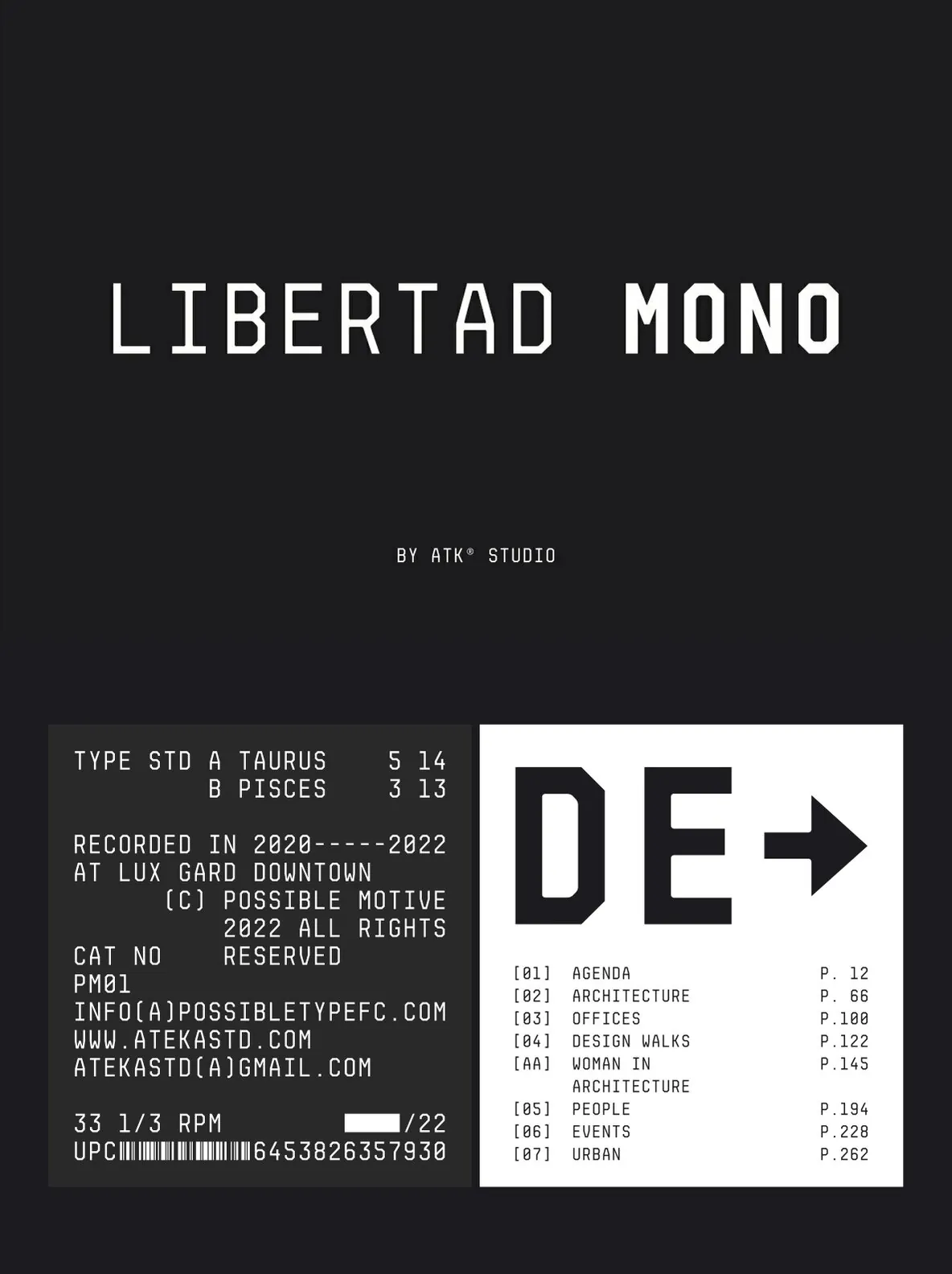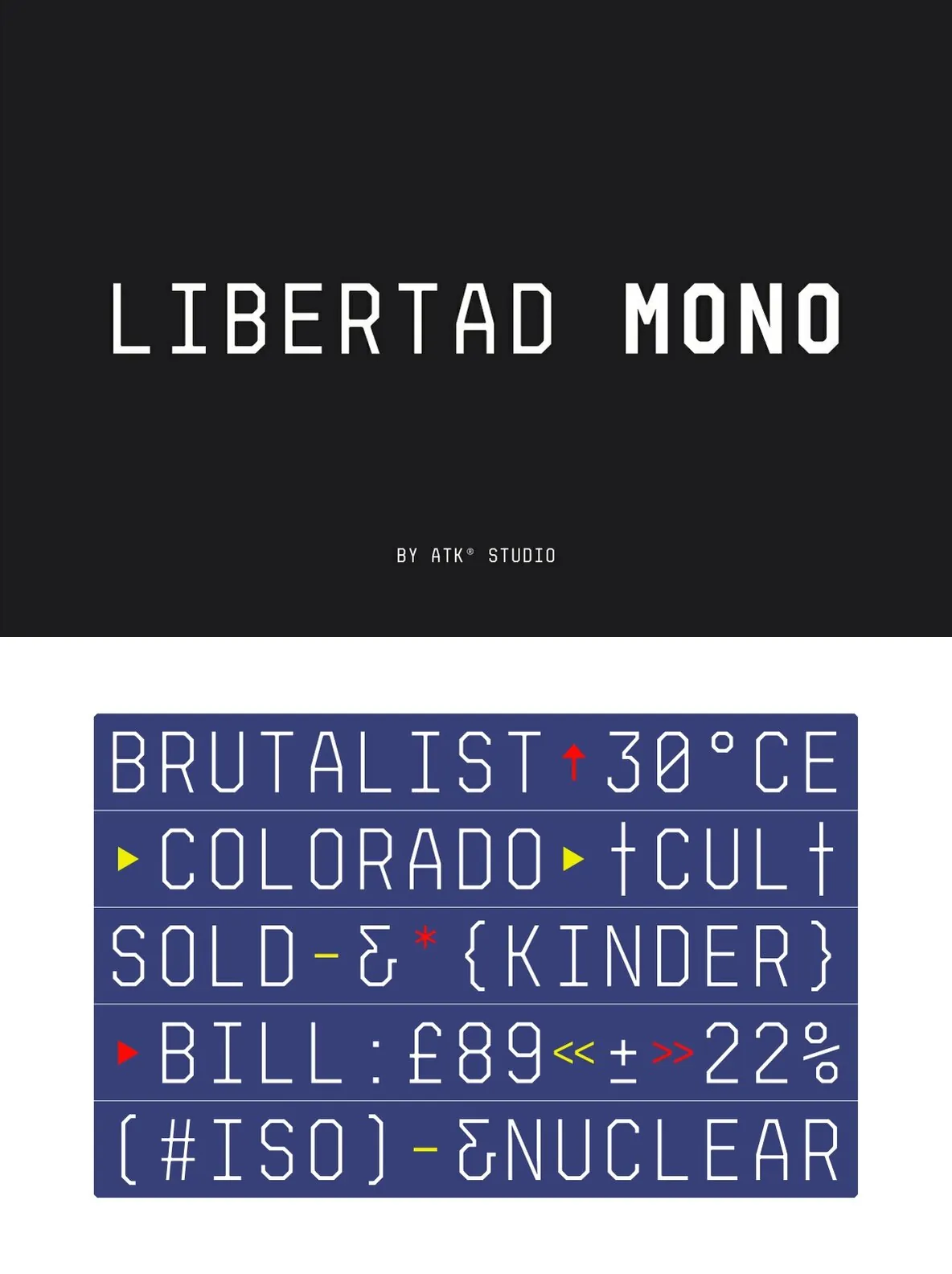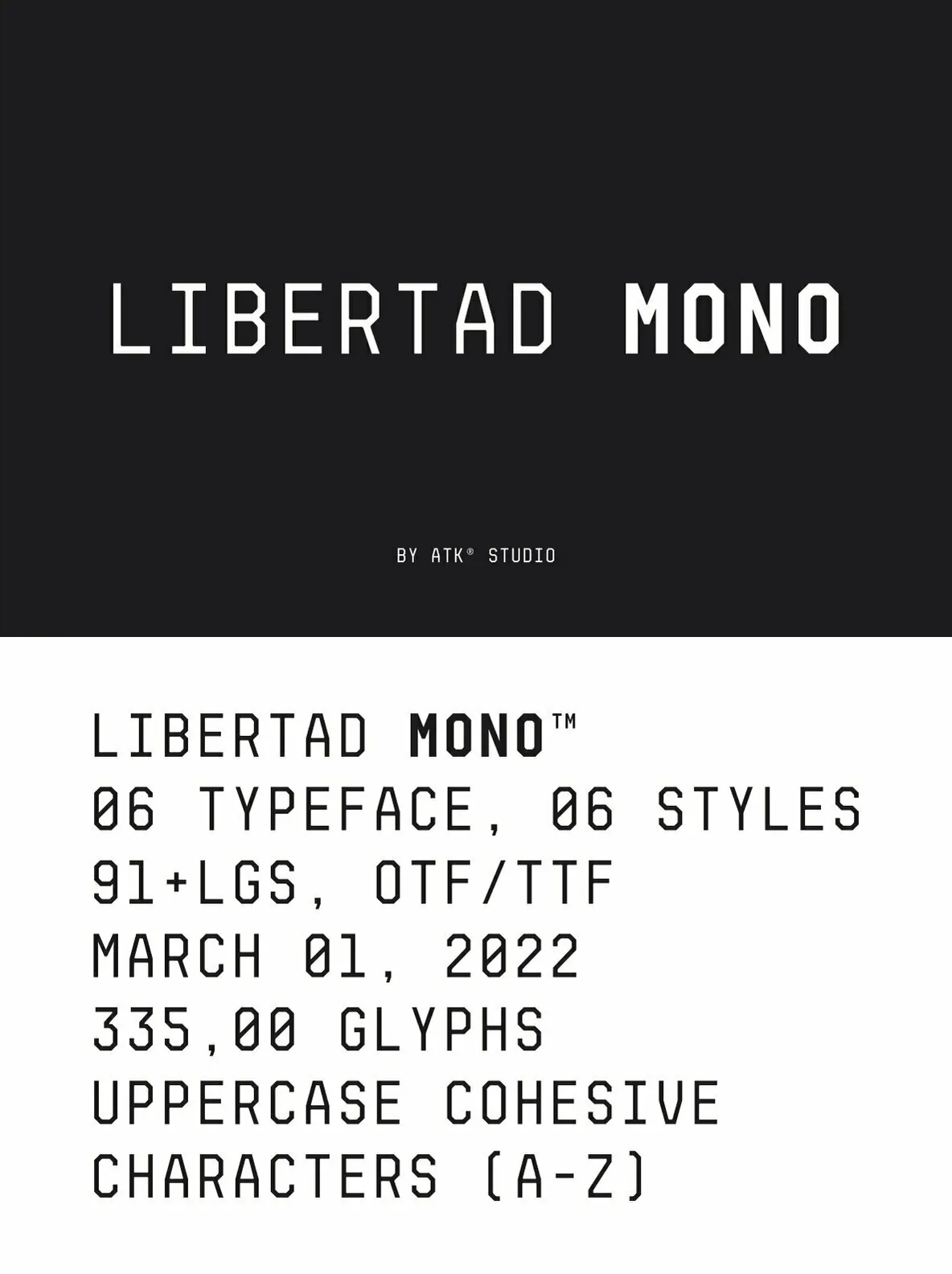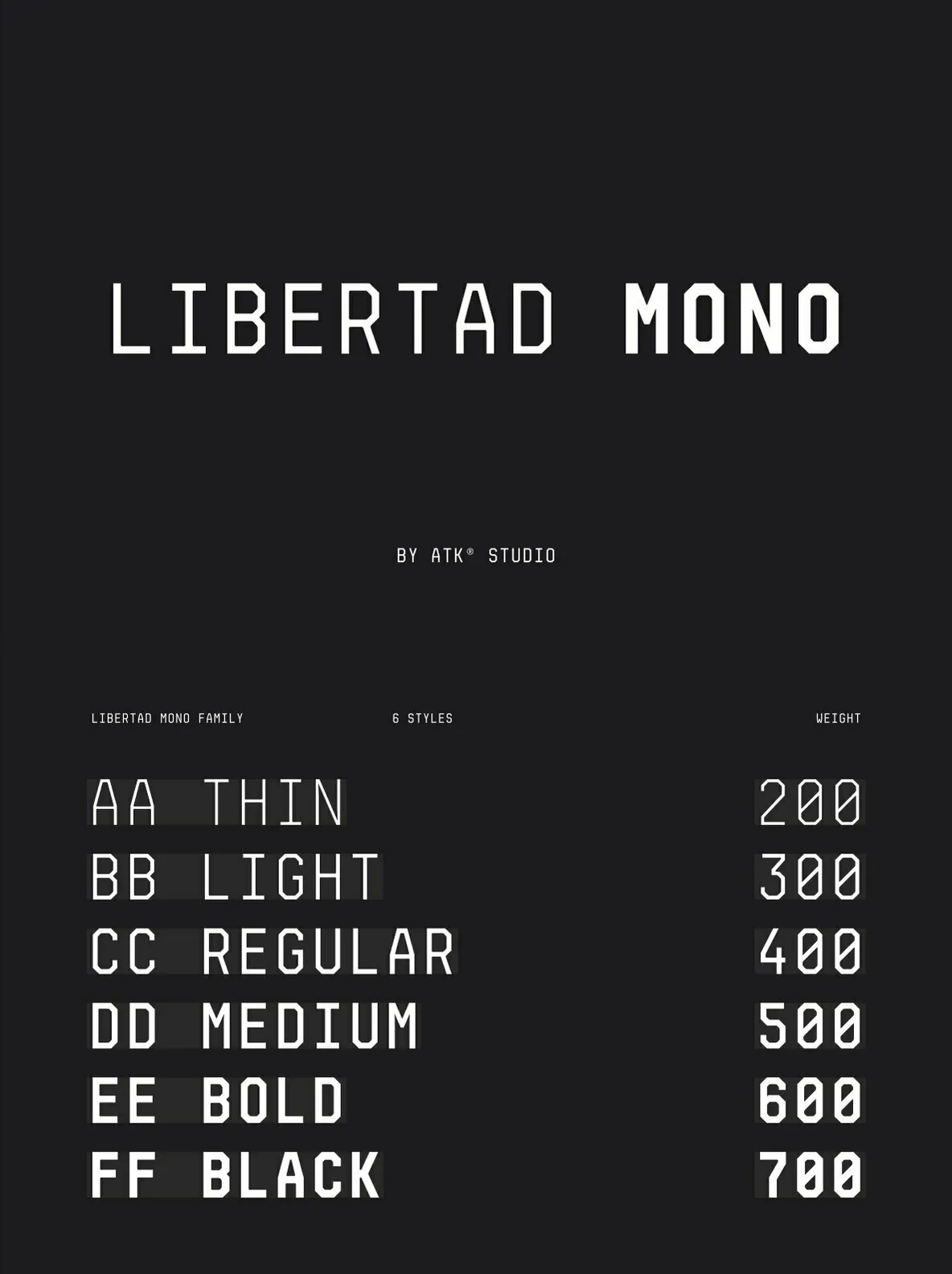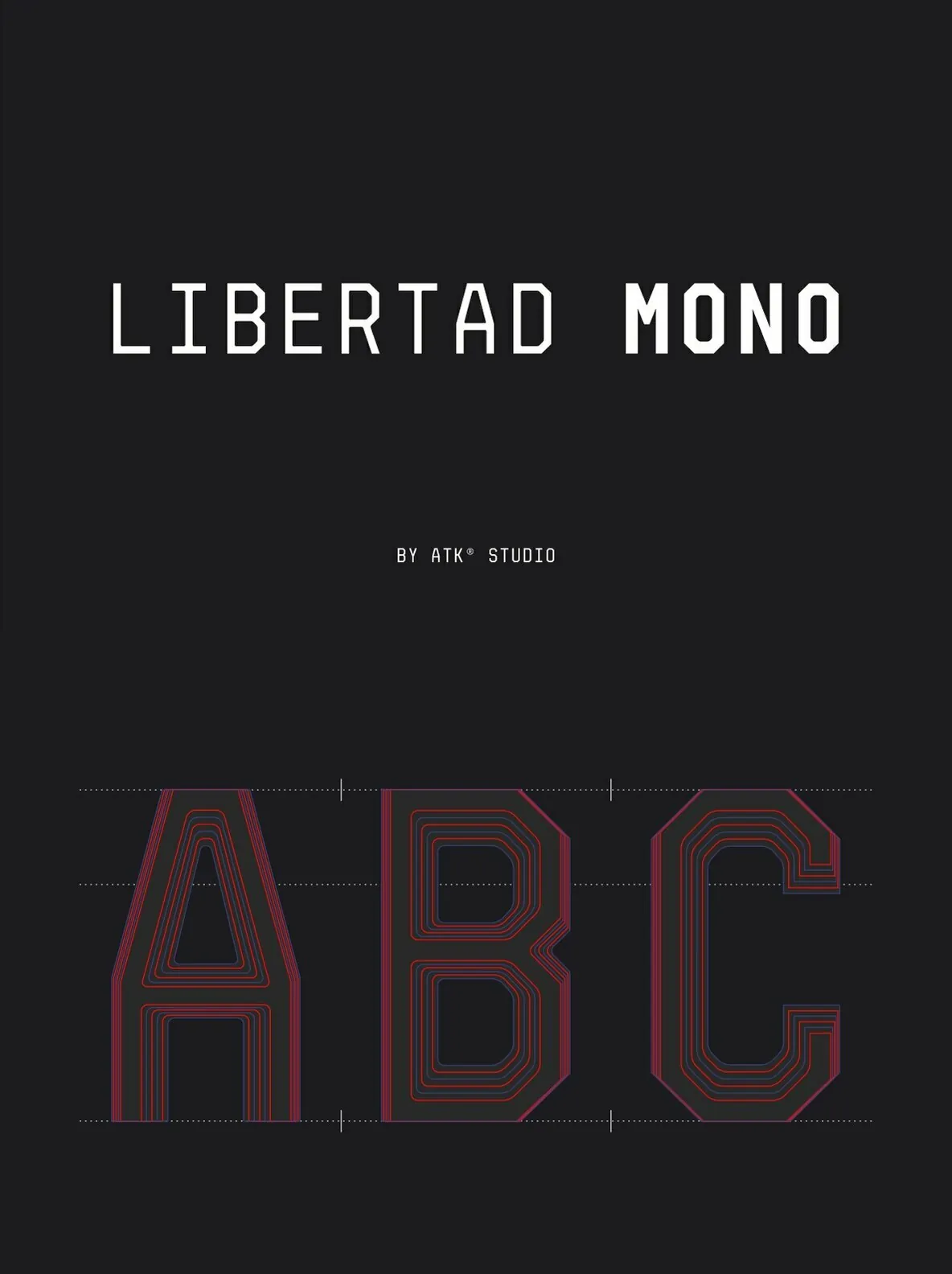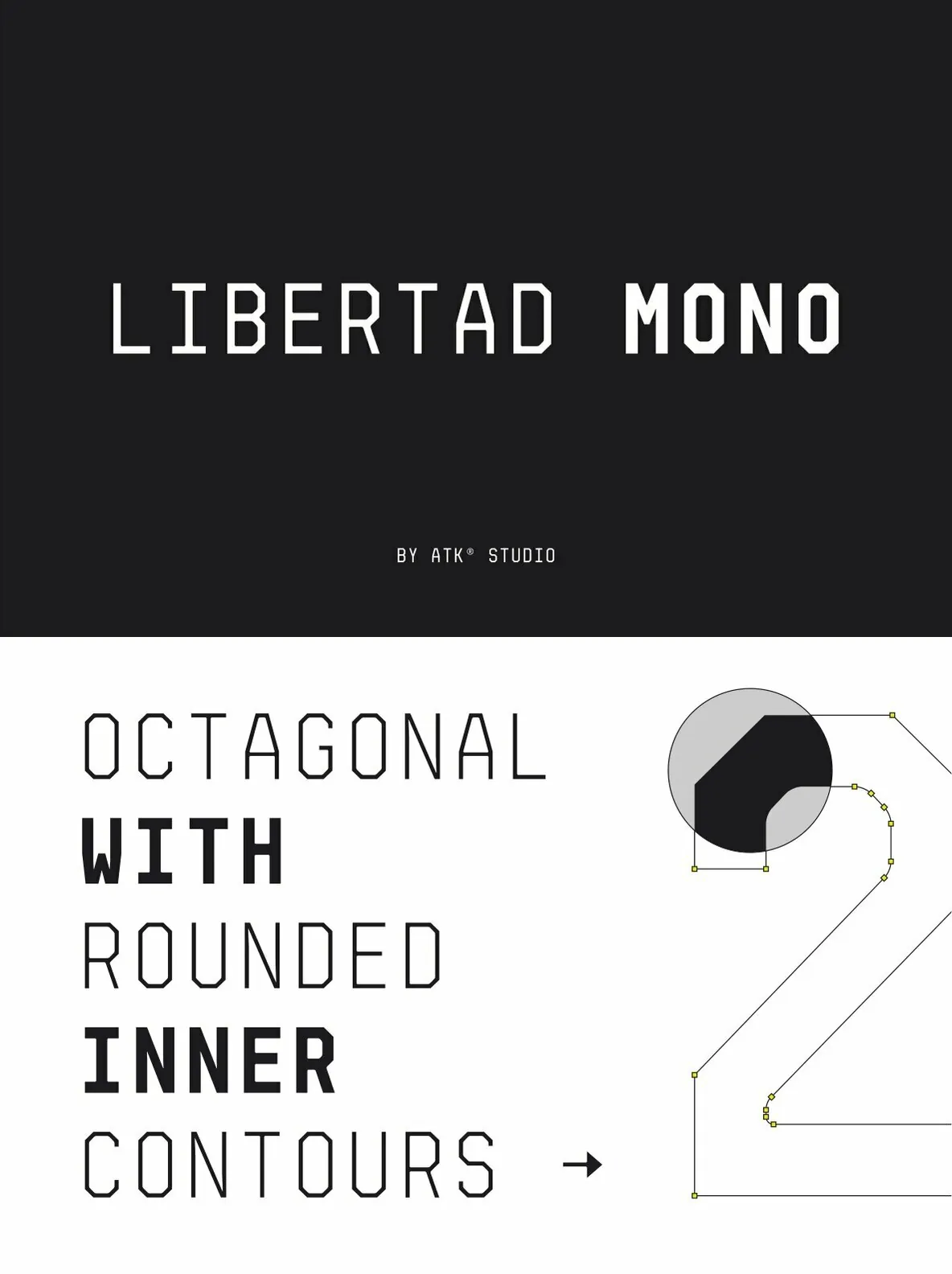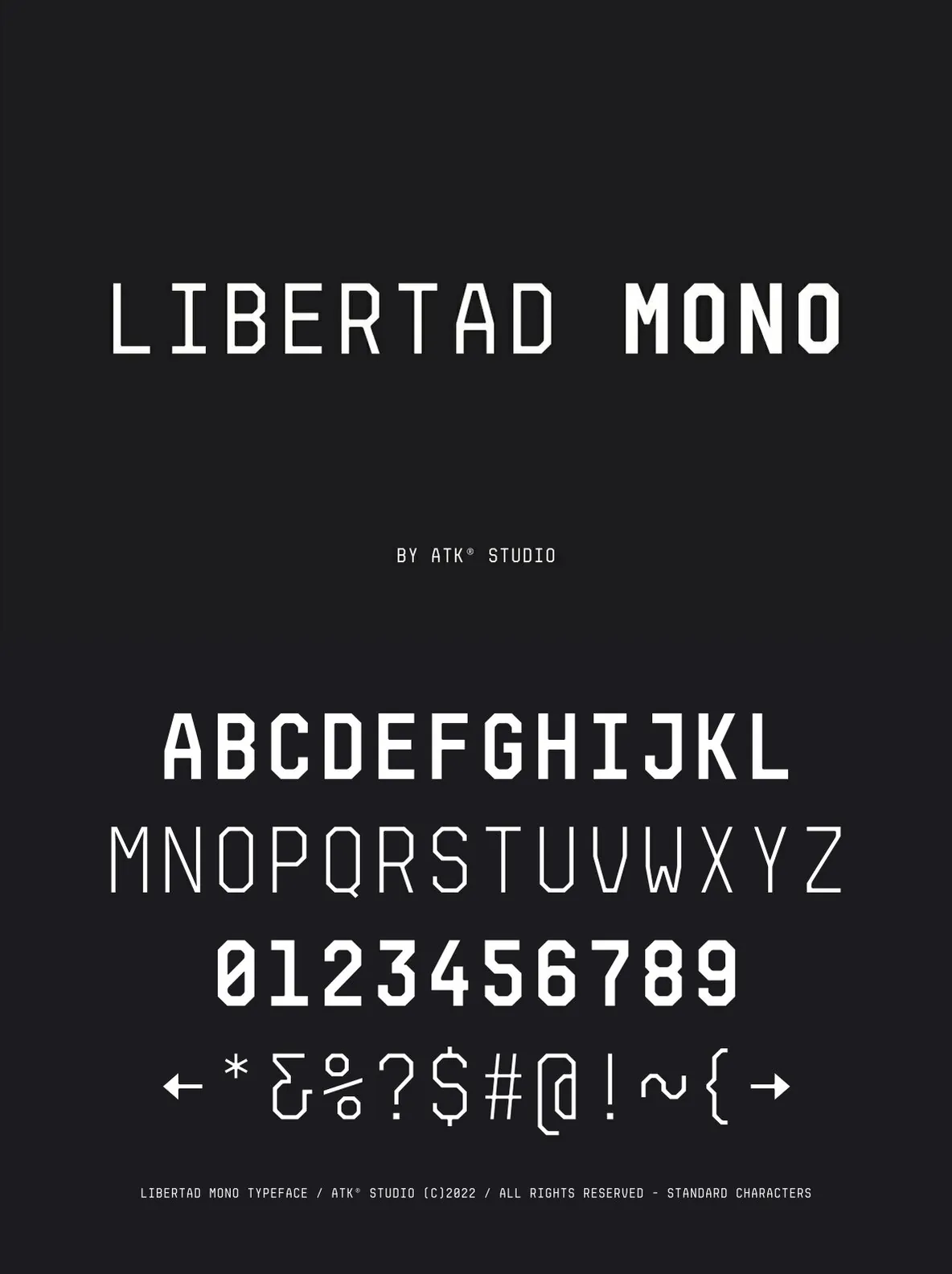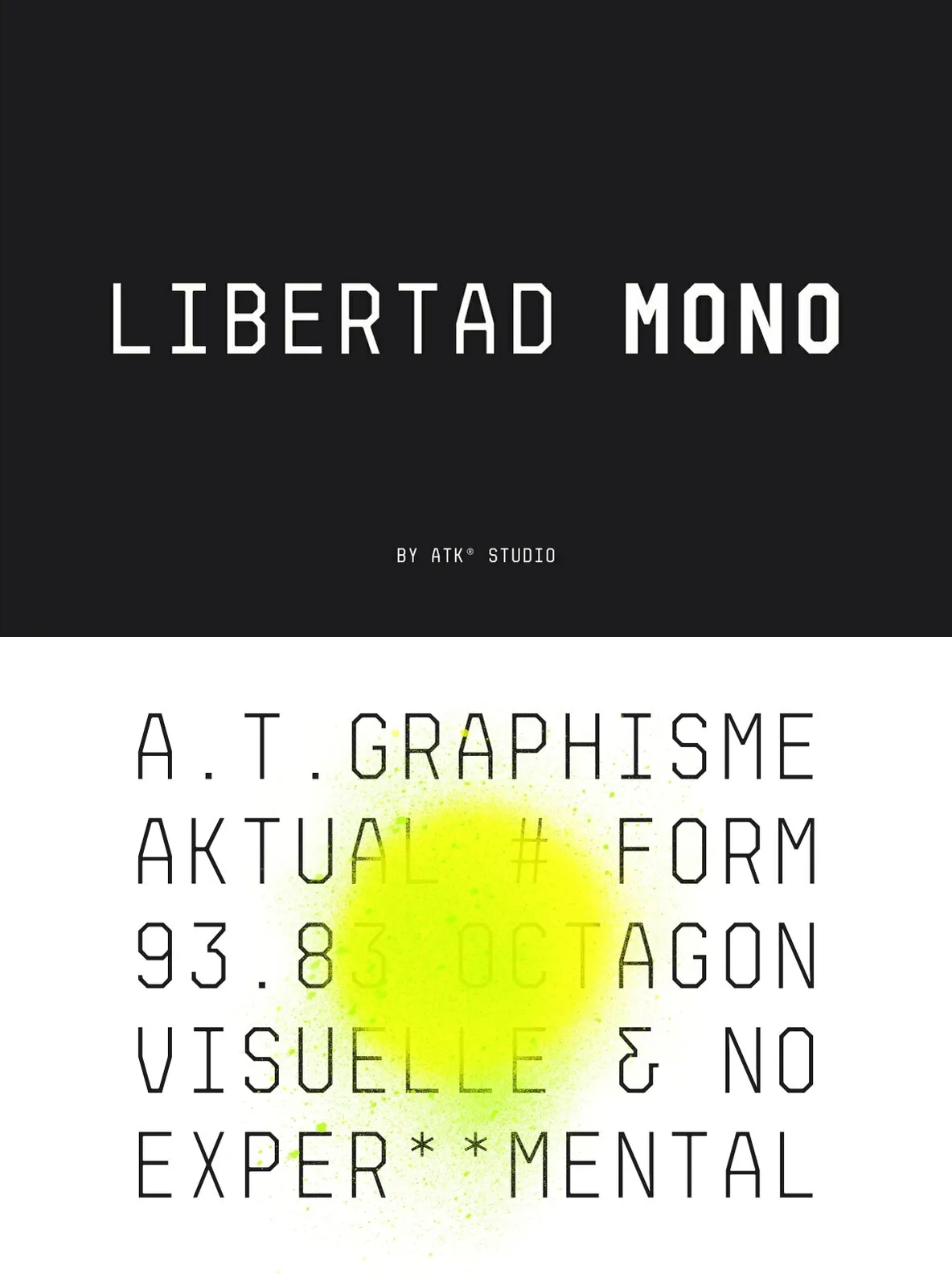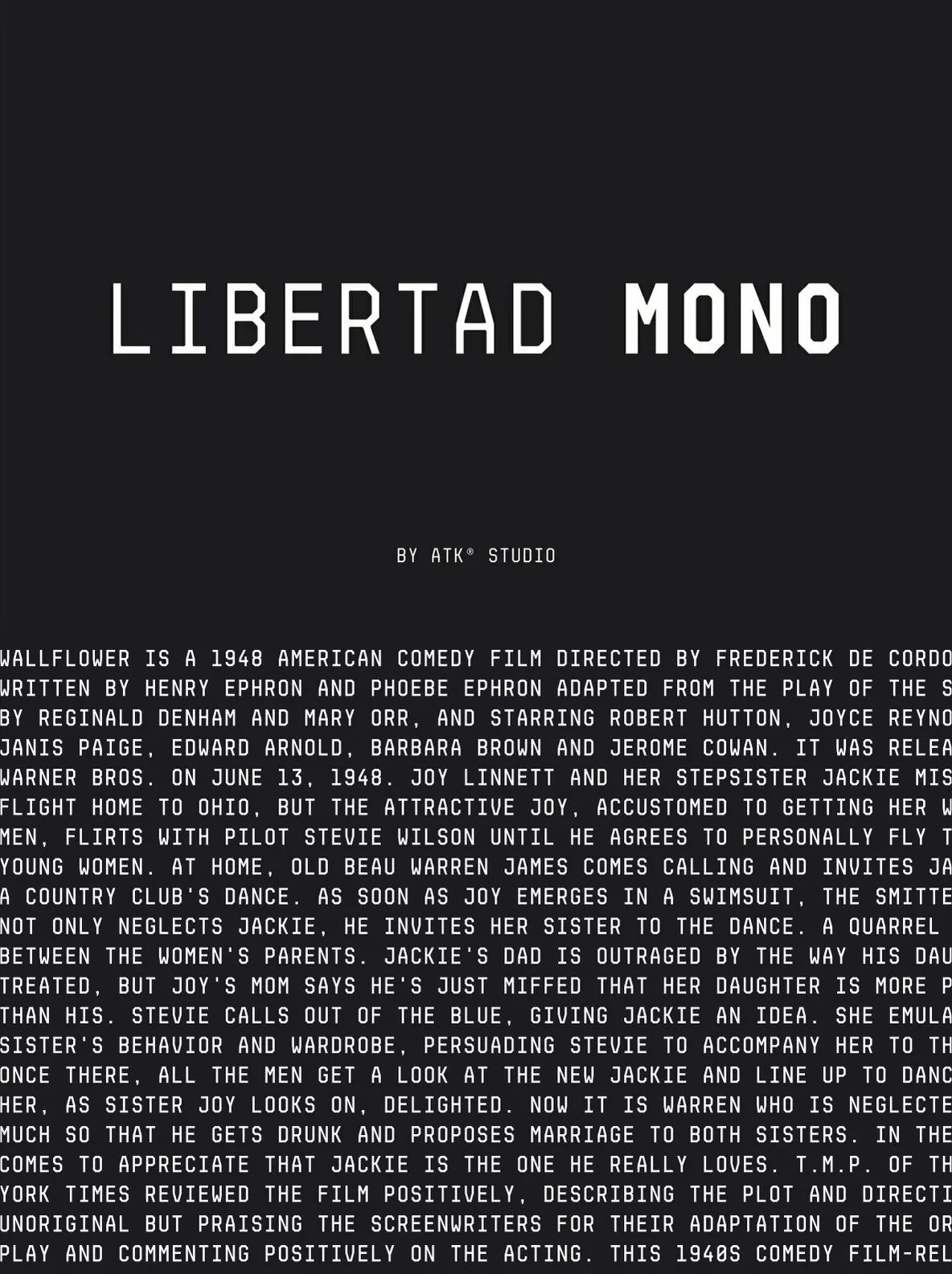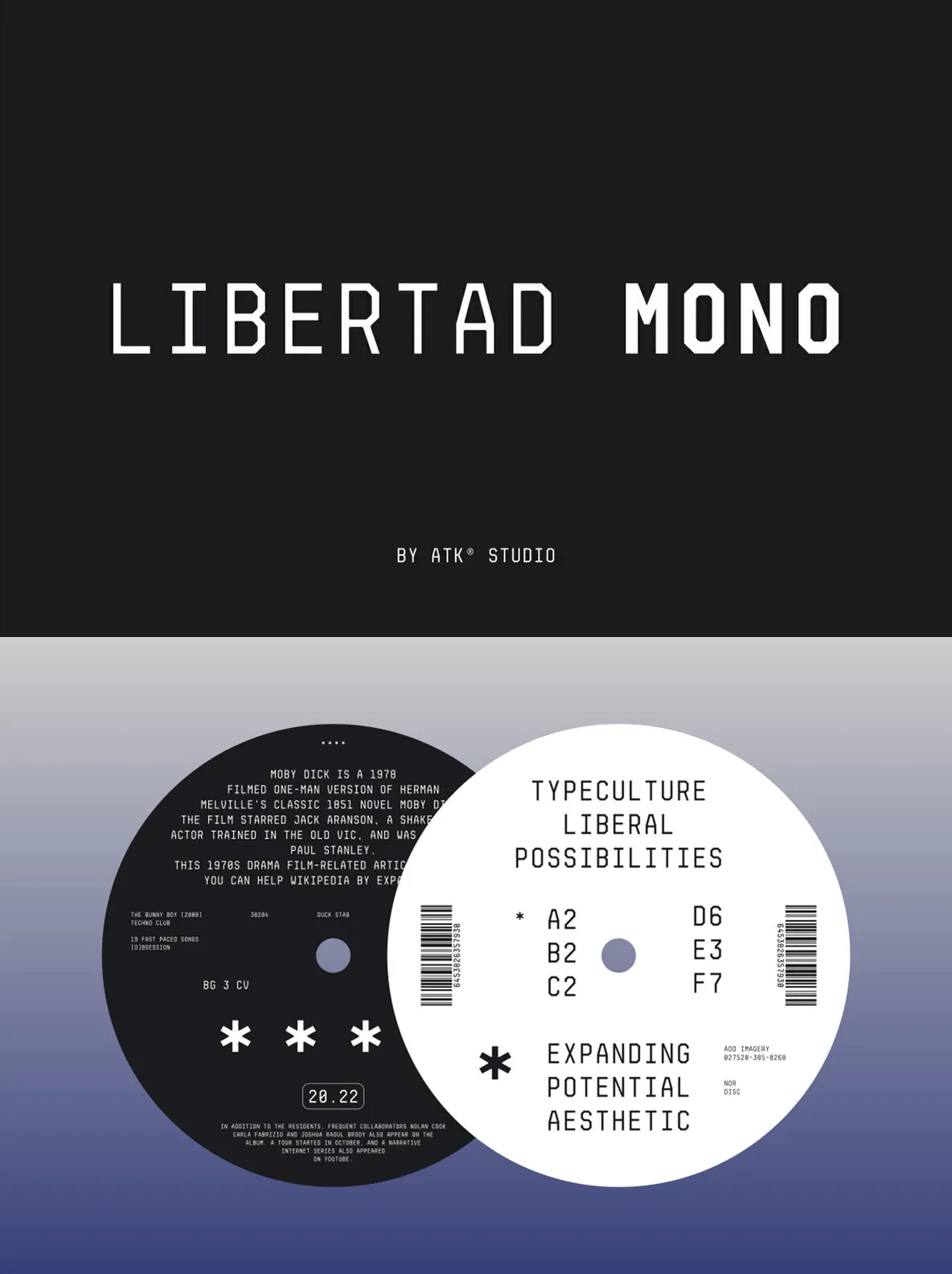
Libertad Mono — Octagonal Tech Display Energy
Libertad Mono is a tech display font with a clear geometric voice. Its octagonal shape gives letterforms a firm, engineered presence, while the rounded inner contours soften the structure and keep the rhythm readable. The result feels precise without looking rigid.
Published by Radinal Riki Mutaqin, Libertad Mono suits contemporary branding, UI headlines, posters, and editorial titles that need a mono-style look with confident angles. Use it when you want a display typeface that reads as technical and deliberate, with details that hold up at larger sizes.